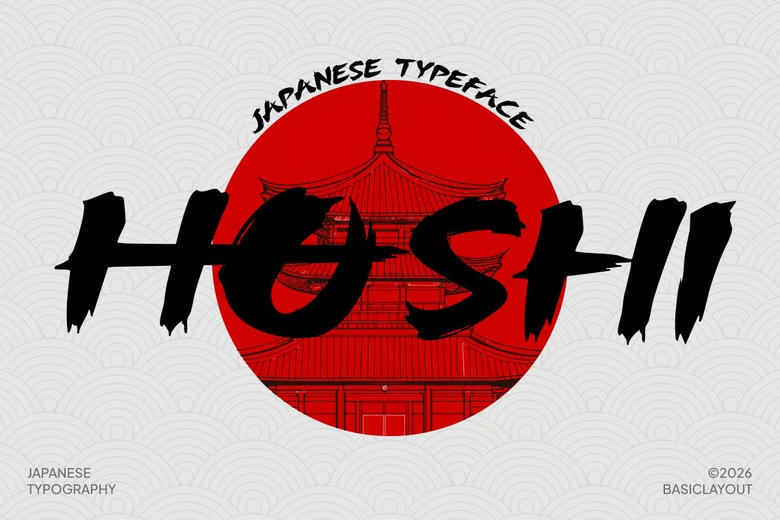
Hoshi Font
Hoshi is a bold brush typeface inspired by Japanese design. Its expressive strokes and energetic brush shapes combine traditional Japanese style with a modern display look.
This typeface works well for posters, restaurant branding, packaging, merchandise, tattoo-inspired art, gaming graphics, and Japanese-themed projects. It brings bold, handcrafted energy and a unique calligraphic style to your designs.
Hoshi Japanese Brush Font